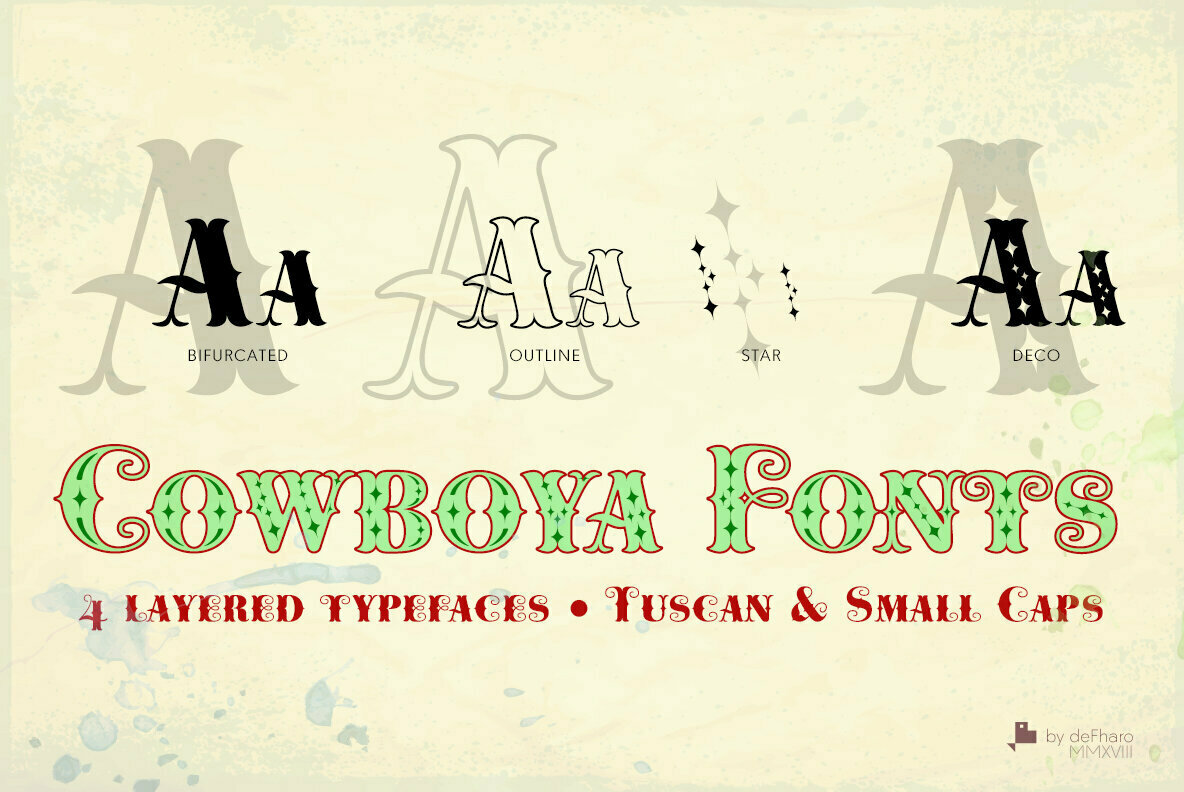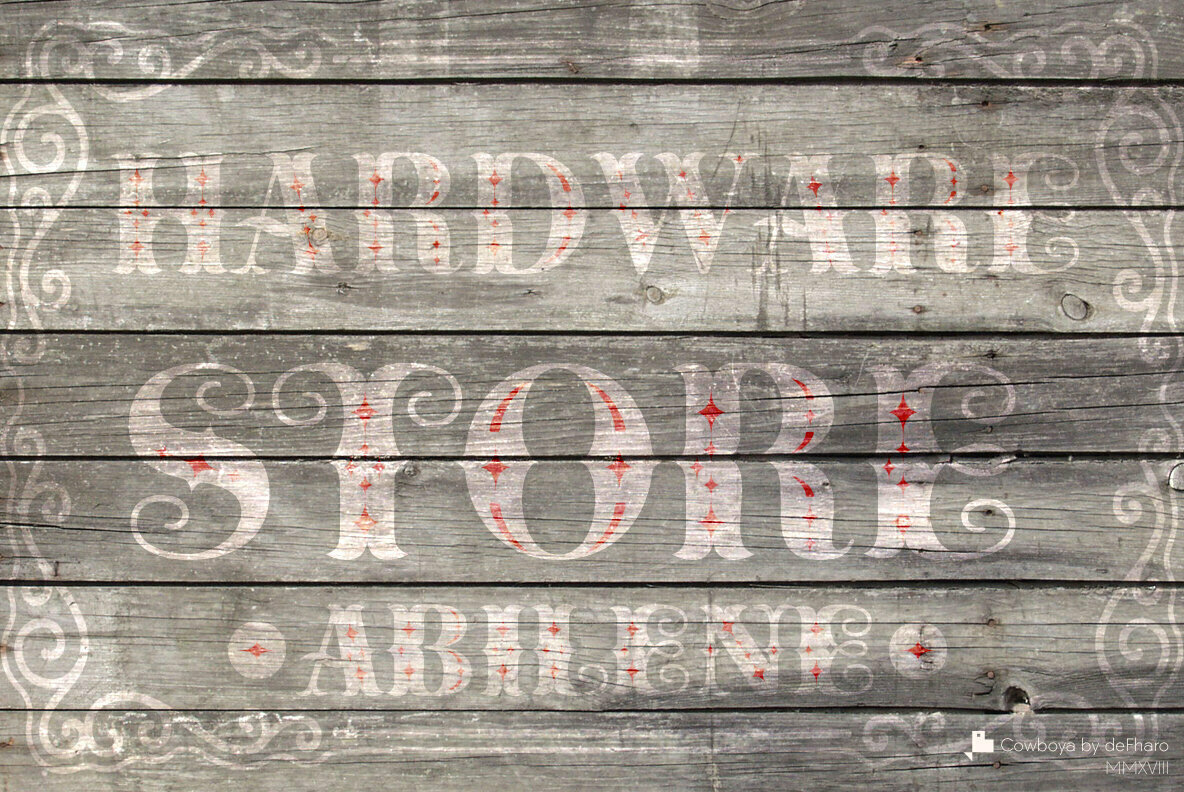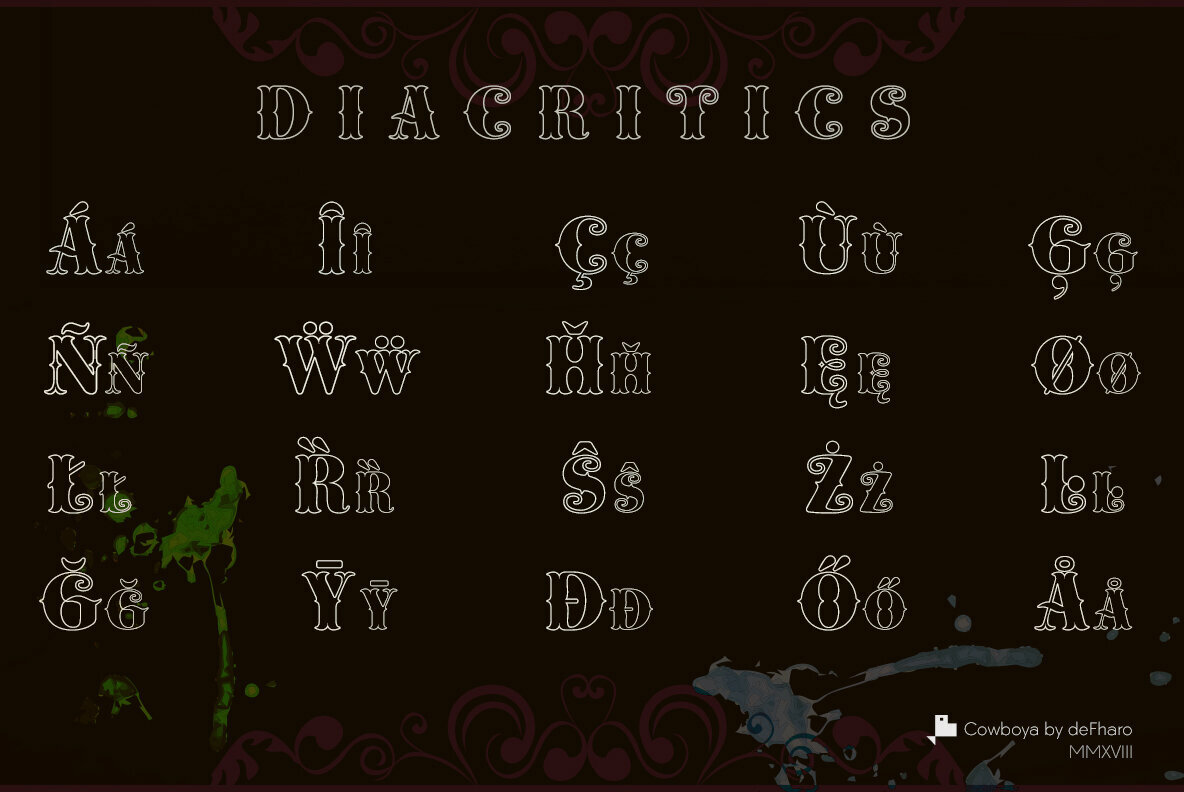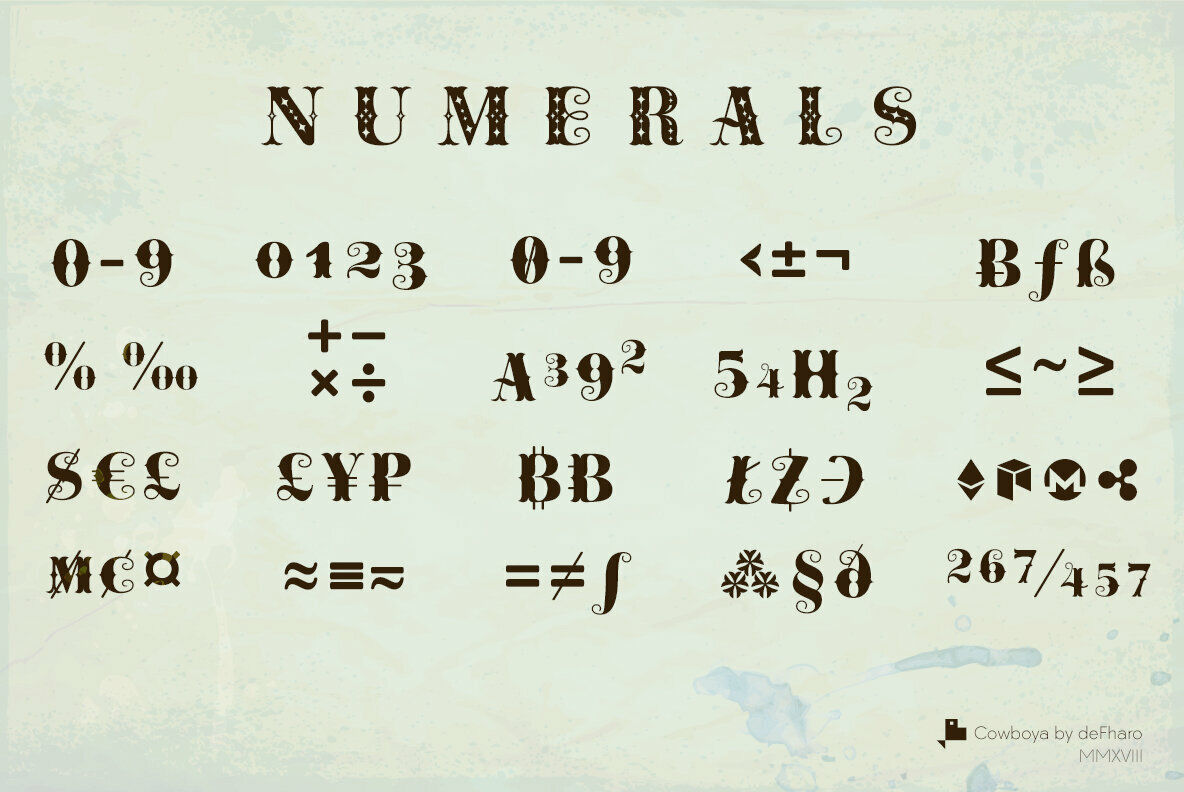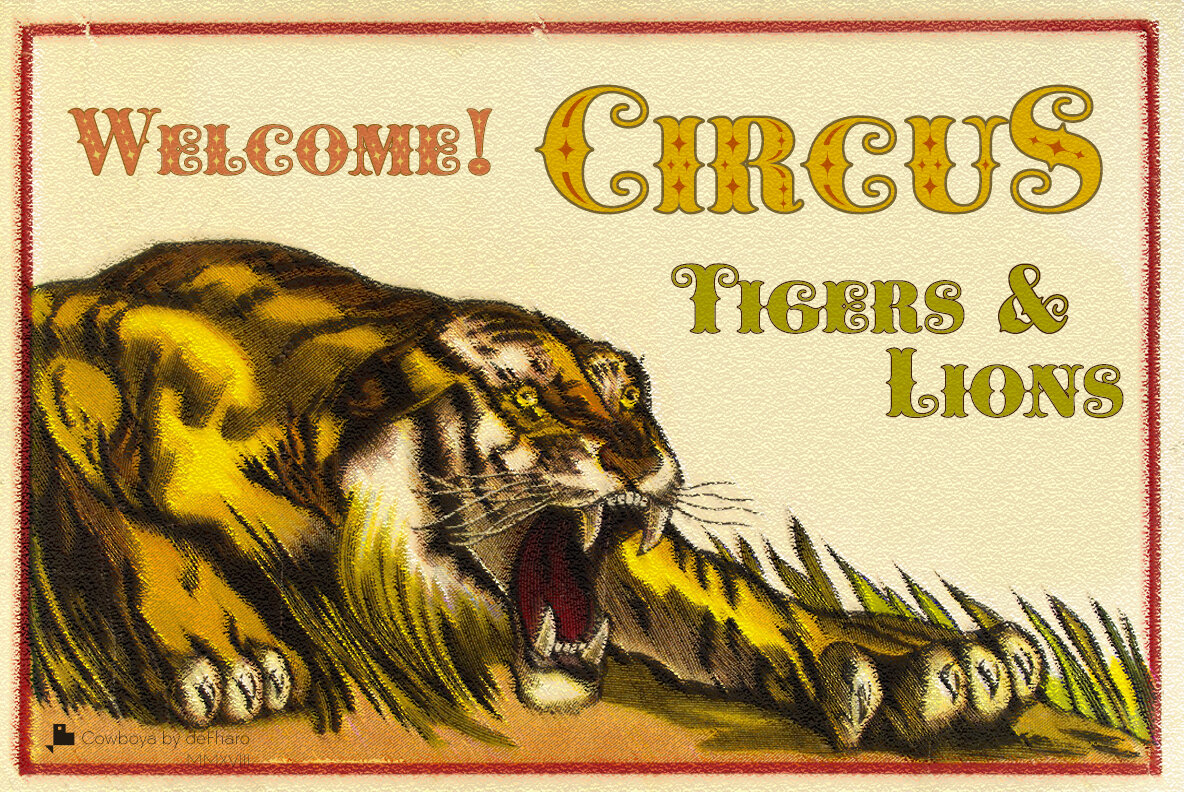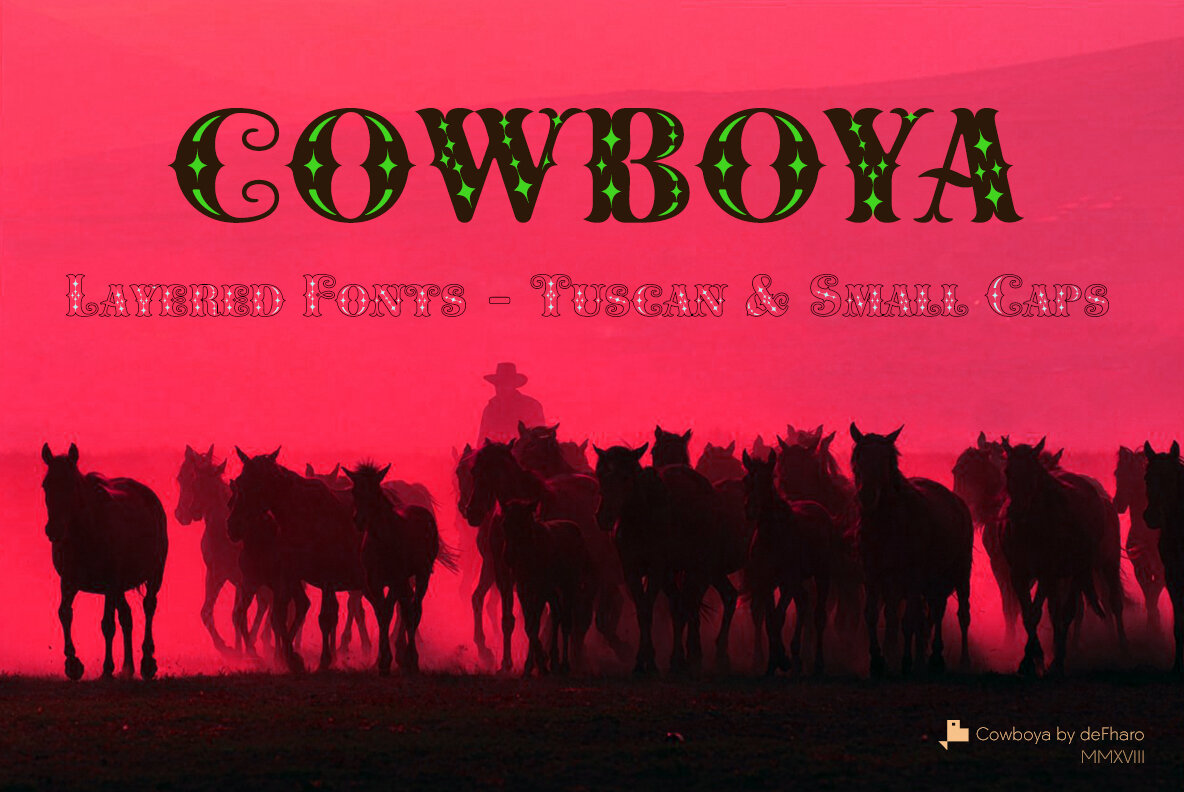
Cowboya Tuscan Font
Cowboya Tuscan embraces the charm of concave Tuscan serifs, blending bold contrast with modernist echoes in small caps. This versatile font family offers four distinct versions that can be layered to create vibrant, multicolored typographic compositions. Inspired by the credit titles of Frizt Lang's 1950 film, 'The House of the River,' Cowboya Tuscan weaves decorative elements into its original letterforms, lending it a festive flair. Traditionally, such Tuscan serifs found their place in Italy’s 19th-century headlines and posters, often linked to the lively settings of circuses and the American West. Additionally, the font features rounded antlers and counterforms, delivering a contemporary contrast with its sharp serifs, ideal for a design-savvy audience seeking both tradition and innovation.Cowboya Tuscan: Bold Typography with a Modern Twist